OpenType is a font format developed by Adobe in conjunction with Microsoft, Apple, and others. It is an advanced font format that allows the addition of hundreds of “features” to a font. Have you ever wanted to use the OpenType feature in any software either Microsoft Office or Adobe Acrobat but didn’t know how? This article will briefly explain the OpenType feature and how you can use this feature in Microsoft Office or Adobe Acrobat Version 8.0 or higher.
What Are OpenType Features?
OpenType features are advanced typographic features that can be used in any application that supports OpenType fonts. They provide an easy way to apply styling effects and make the text more readable for your users. Here are some examples of common OpenType features:
Stylistic Sets: These are sets of characters with alternative designs, such as bold, italic, and small caps. The feature defines how the character should be displayed based on what type of font is being used. Stylistic sets often contain different versions of the same letters or glyphs, such as the lowercase ‘a,’ and they are activated by selecting a Stylistic Set to use manually.
Contextual Alternates: Alternates are glyphs that can be used in place of another glyph. They can be used to create a more prosperous typographic design or just add variation to your text. However, Contextual Alternates are similar to Stylistic Sets in that once enabled, the wide varieties of glyphs are automatically swapped out based on context, such as the first or final letter of a word having extra flourishes.
Ligatures: Ligatures are two or more characters combined into one glyph, usually to avoid collision between letters in different words. Professional calligraphers have designed many ligatures over the years, but computers create them automatically when they recognize words that collide. Some examples of ligatures include fi and fl, which are commonly used in Latin-based languages like French, German and Spanish.
Opentype Fonts Support
Opentype fonts are commonly used in web design. This is because they allow you to create more complex, impossible designs with the .ttf (True Type Font) format.
OpenType fonts are cross-platform; they may be used on both a Mac and a PC. OpenType features can also be utilized in any text-creation desktop software on your computer. Please keep in mind that not all programs support the Opentype Feature.
As a result, most software lets you utilize a font’s basic character set (Ex: ABC, 123). However, not all programs will instantly enable you to use complex OpenType features (such as alternates, ligatures, or swashes).
Using the Opentype Feature in Any Software
Using the OpenType feature in any software is easy and takes only a few minutes. Let’s look at how you can use this feature in Microsoft Word, Adobe Illustrator, Photoshop, InDesign, and more.
Microsoft Word
Microsoft Word is the most popular word-processing program. It’s used by everyone from students to business professionals. This software can create and send documents, spreadsheets, and presentations. To use OpenType capabilities in Word, pick the text and go to format> Font, then go to the Advanced tab and select a Stylistic set from the menu or enable Contextual Alternates.
Adobe Photoshop
Photoshop is an extremely powerful tool for making changes to your text. You can change the font and style with just a few clicks and adjust the alignment and spacing. However, there are times when you need more control over your text.
The OpenType functionality in Photoshop may be found in the Character panel, accessed via the Window menu. There are various useful shortcuts in the main panel (highlighted below) and a list accessible via the top right menu icon.
Adobe Illustrator
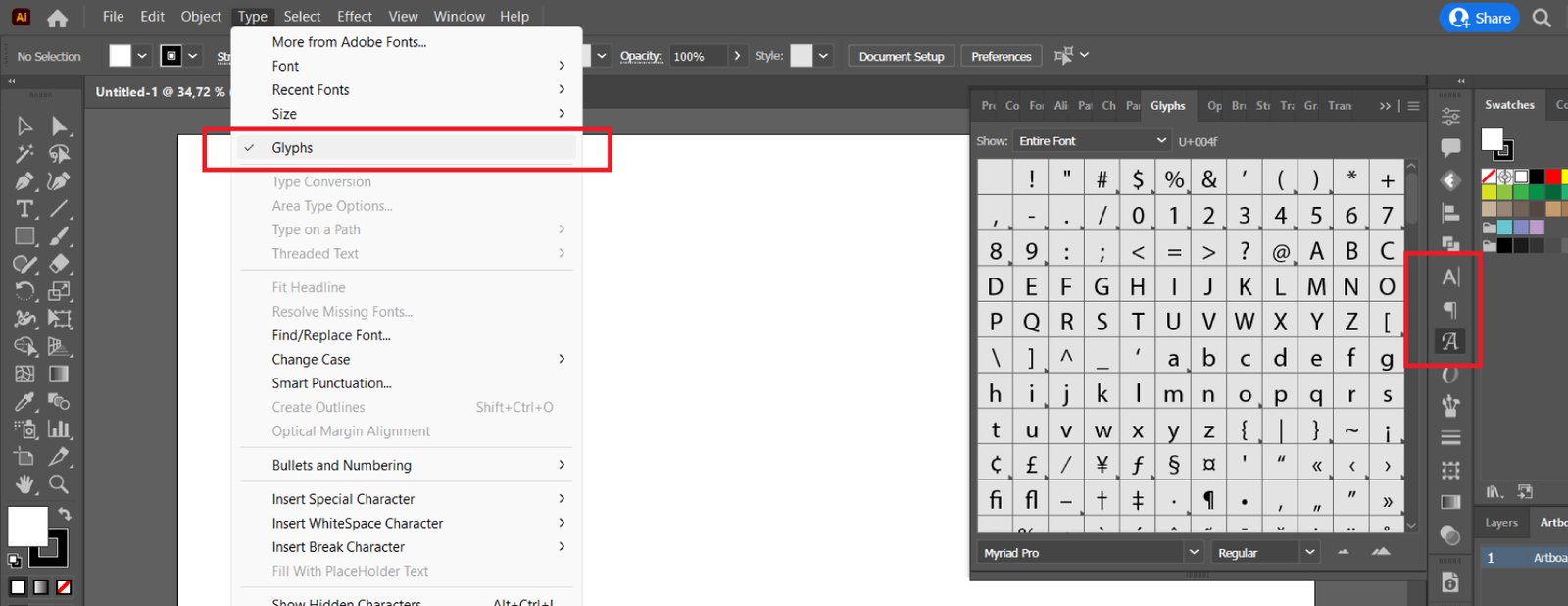
Adobe Illustrator is a vector graphic design software that allows users to create digital graphics and logos. It will enable users to create typefaces with OpenType features, such as ligatures, fractions, and small caps.
Illustrator differs from Photoshop in that the OpenType functions are not in the Character panel but rather in their own OpenType panel, which may be reached via the Window > Type menu. This will display all of your options for that text box. Select “OpenType” from the options menu, and you can choose from several different fonts that include OpenType features.
InDesign
InDesign is a very popular software for printing and creating documents. It has a feature that allows you to use OpenType features, which are not available in other word processing and desktop publishing programs.
InDesign OpenType capabilities are activated using the Character window. Unlike Photoshop, there are presently no shortcuts in the main panel, so you must get to OpenType by clicking the menu button in the upper right corner of the window.
Sketch
A sketch is vector-based software that allows you to create beautiful and professional designs. It is one of the most popular programs for UI/UX design, website design, and graphic design. You can use Sketch to create your projects’ logos, icons, and other graphics.
Conclusion
OpenType features are an exciting and powerful tool, but they may seem a little intimidating to the unfamiliar user. Once set up, they can make all the difference in your design process. Whether you’re using a PC or Mac, many applications support OpenType features; luckily, setting them up is easy. With just a few easy steps, you can unlock the power of numeral forms and ligatures for any project!